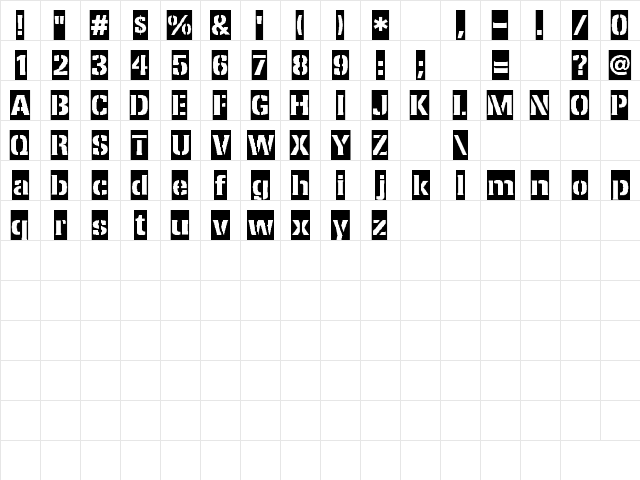
2Peas Frazzled Stencil Negative 2Peas Frazzled Stencil Negative Font Preview
| Foundry | High-Logic |
| Designer | High-Logic - Erwin Denissen 1999 |
Design Context for 2Peas Frazzled Stencil Negative Typeface
2Peas Frazzled Stencil Negative borrows the utilitarian aesthetic of stencil lettering, with its characteristic cutaways and no-frills construction lending an industrial edge.
A strong choice for packaging that needs edge, warehouse aesthetics, and rough-and-ready visual identities.
Pro Tip: Use 2Peas Frazzled Stencil Negative at large sizes on packaging, posters, or apparel where the stencil cutaways read clearly. Avoid small sizes where those gaps become visual noise.